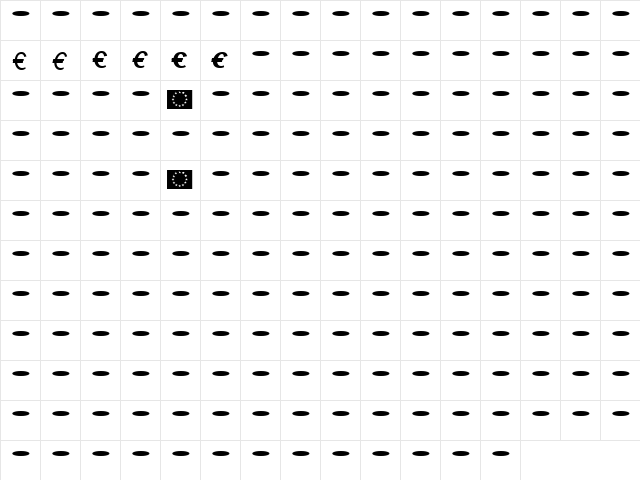
Wunderlich Regular
Design Context for Wunderlich Typeface
Wunderlich is a composed and adaptable typeface that performs quietly and consistently across a wide range of design contexts.